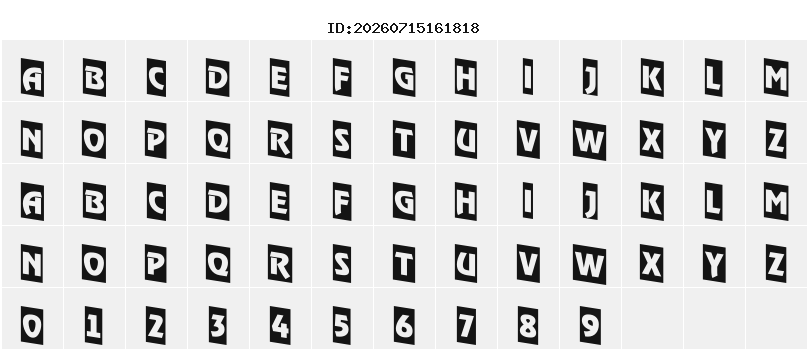
a_RewinderTitulCmDn Preview
About a_RewinderTitulCmDn.ttf
a_RewinderTitulCmDn.ttf is a modern, elegant sans-serif font designed for ultimate readability and visual harmony. Perfect for branding, headlines, web design, and print materials.